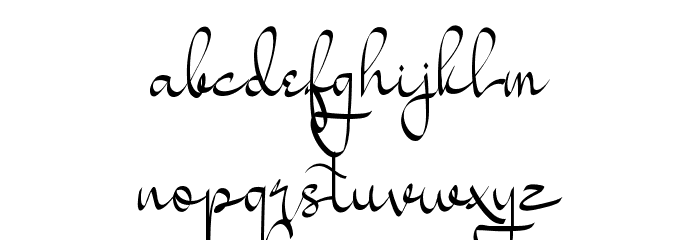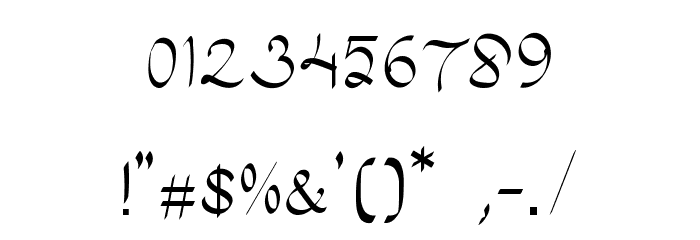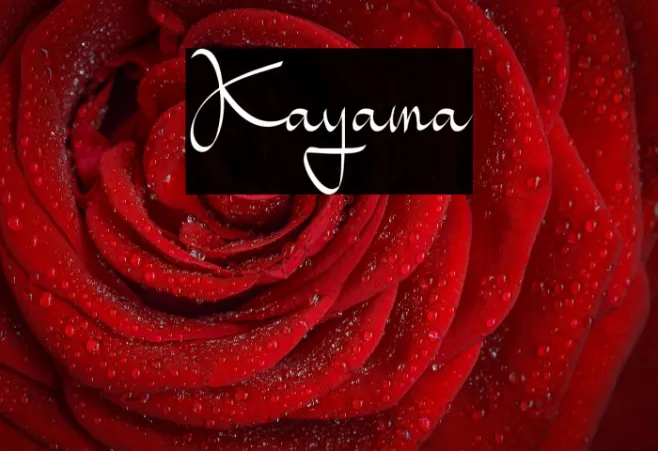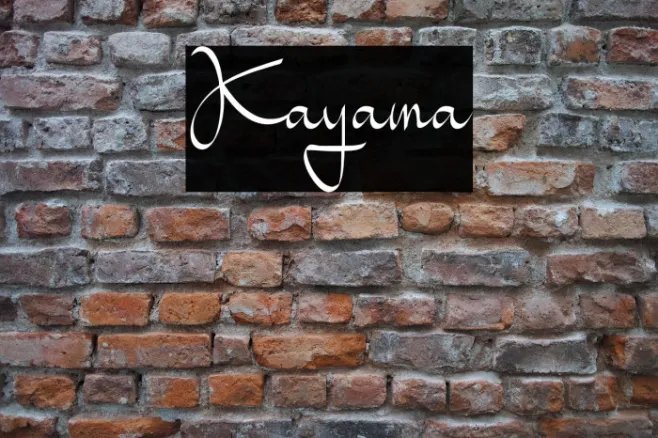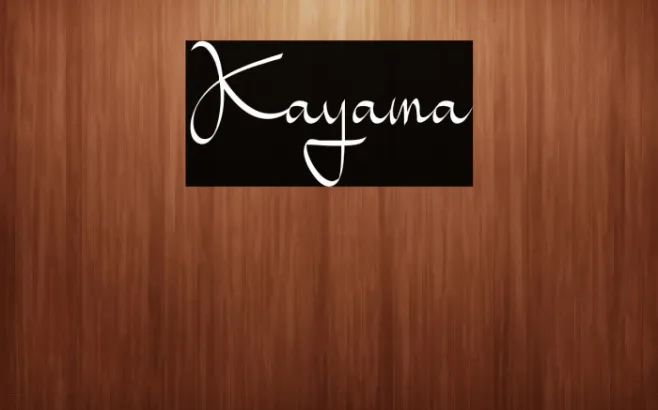
Kayama Font
This elegant script font features a flowing, cursive style with intricate loops and swashes. The uppercase letters are ornate, with a distinct flair that adds a touch of sophistication. The lowercase letters maintain a consistent flow, enhancing readability while retaining an artistic touch. Numbers and special characters are designed to complement the overall aesthetic, making them suitable for decorative purposes. The font's strokes vary in thickness, providing a dynamic contrast that enhances its visual appeal. This font is ideal for projects that require a personal, handwritten feel.
An elegant, flowing script font with intricate loops and swashes.
- Proposed Projects: Wedding invitations, greeting cards, branding, and logo design.
- Use Case: Logos, Invitations, Decorative text